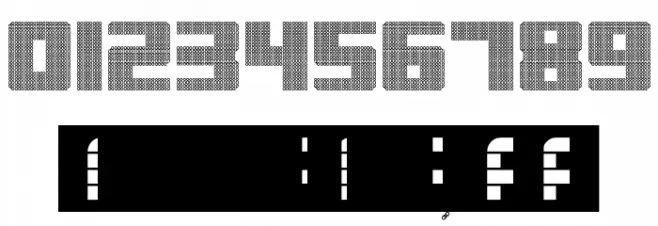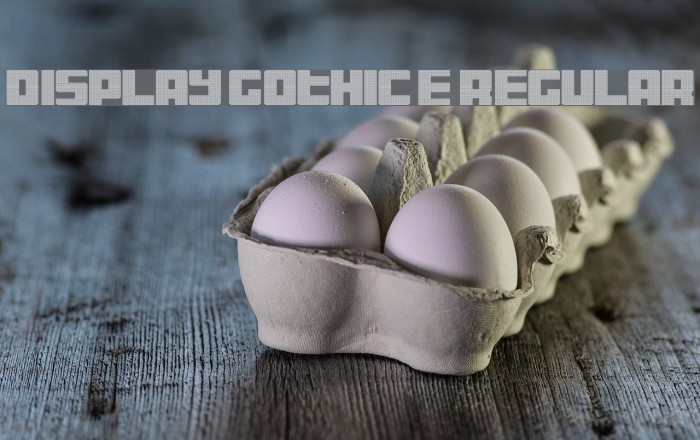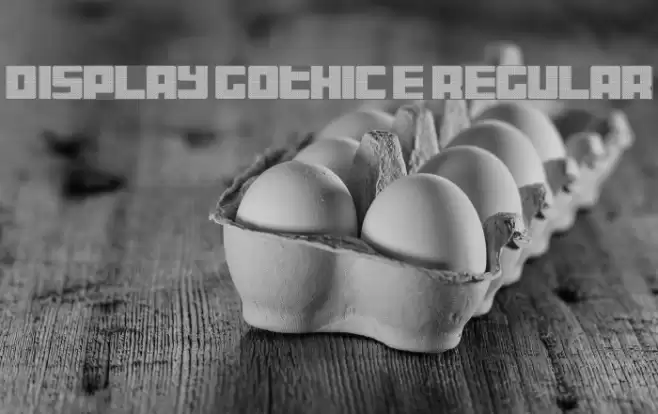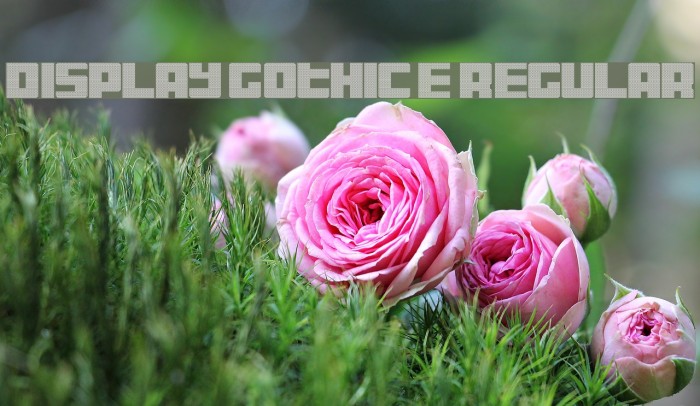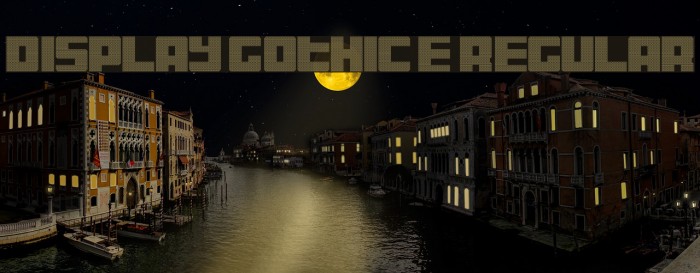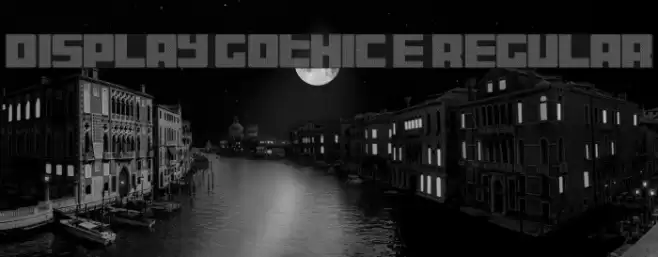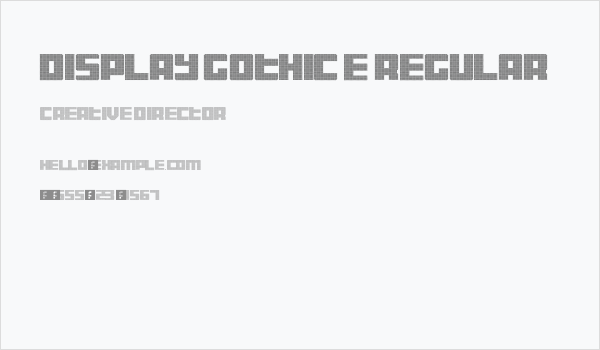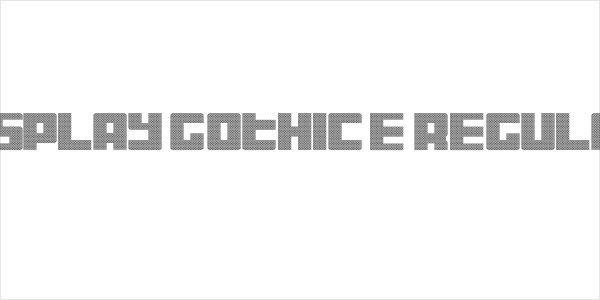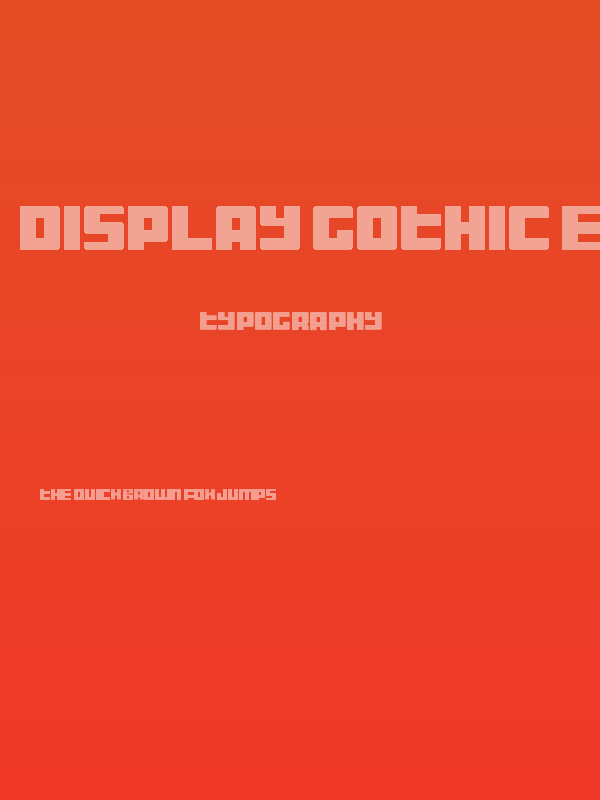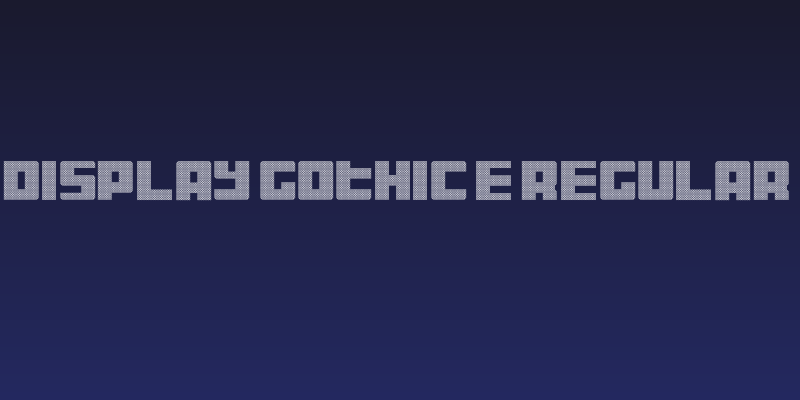
Display Gothic E Regular Font
Display Gothic E Regular Description
This font features a bold, geometric design with a distinct digital aesthetic. Each character is composed of a grid-like pattern, giving it a pixelated appearance reminiscent of early digital displays. The uppercase and lowercase letters maintain a consistent height, contributing to a uniform look. The numerals and special characters follow the same design principles, ensuring cohesion across all elements. The font's structure is blocky and robust, making it highly legible even at smaller sizes. Its unique style is both modern and retro, capturing the essence of digital typography.
| Overall Style | Modern, Retro |
| Use Case | Headlines, Logos, Digital displays |
| Proposed Projects | Ideal for digital-themed projects, tech branding, video game interfaces, and retro-inspired designs. |